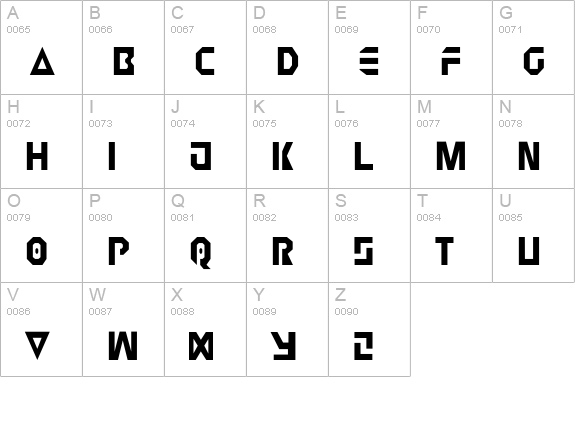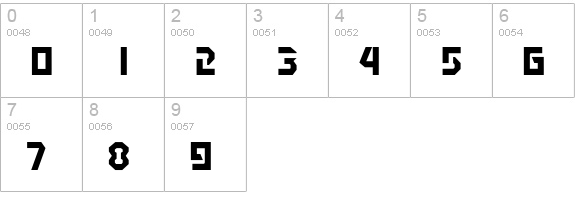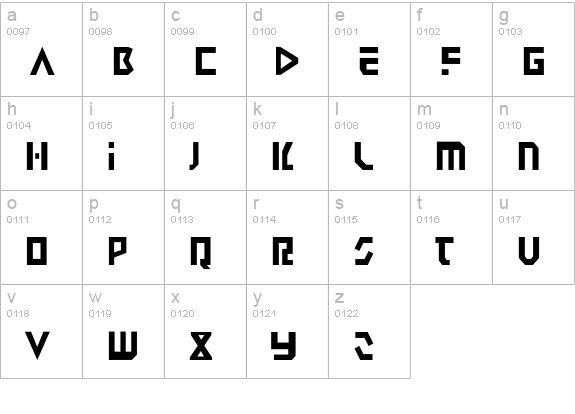
Judge Hard Font Details
Introducing Judge Hard font, a bold and commanding typeface that exudes power and authority. With its strong and sharp design, Judge Hard font is perfect for making a bold statement in your projects. This versatile font is ideal for headlines, titles, logos, and more. What's even better is that Judge Hard font is available for free download at FontsMarket.com. Don't miss out on the opportunity to add this impactful font to your collection. Download Judge Hard font today and make a lasting impression with your designs.